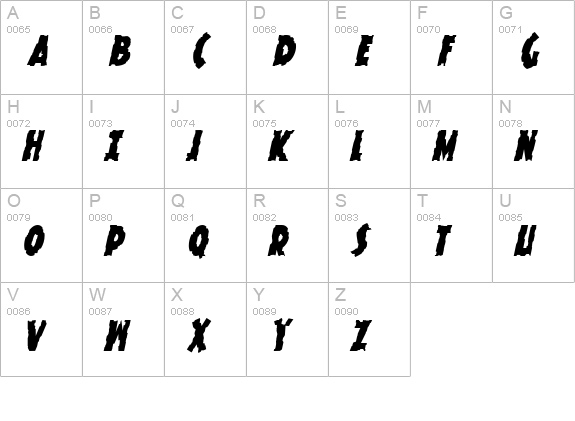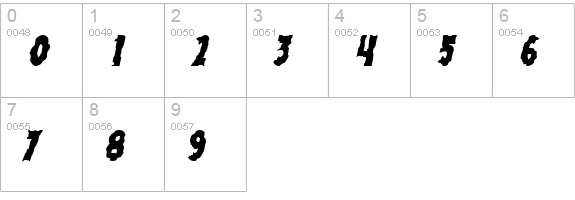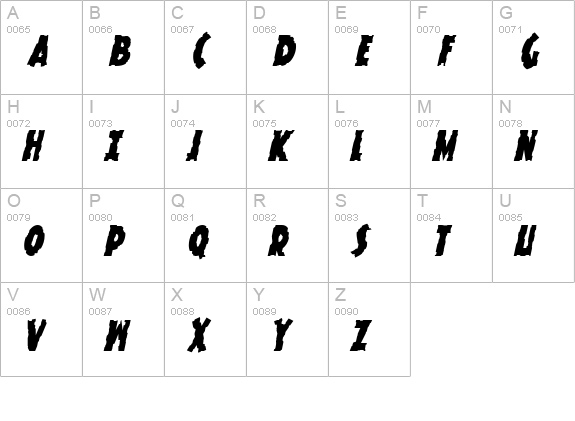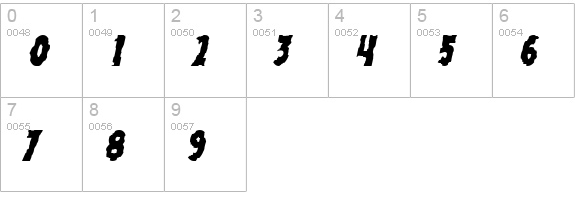
Knuckle Sandwich Krunchy Italic is a distinctive, italic variant in the Knuckle typeface family \xE2\x80\x94 well suited to design and typography projects.
Introducing Knuckle Sandwich Krunchy Italic font - a bold and dynamic typeface that exudes a sense of energy and strength. This unique font features a distinctive italic style with sharp edges and a playful touch, making it perfect for eye-catching designs and headlines. Its rugged appearance adds a touch of edginess to any project, while maintaining a sense of modernity and sophistication. And the best part? Knuckle Sandwich Krunchy Italic font is available for free download at FontsMarket.com! Whether you're working on a poster, logo, or social media graphics, this font will surely make your designs stand out. Embrace the boldness and creativity of Knuckle Sandwich Krunchy Italic font and take your projects to the next level. Download it today and let your creativity soar!